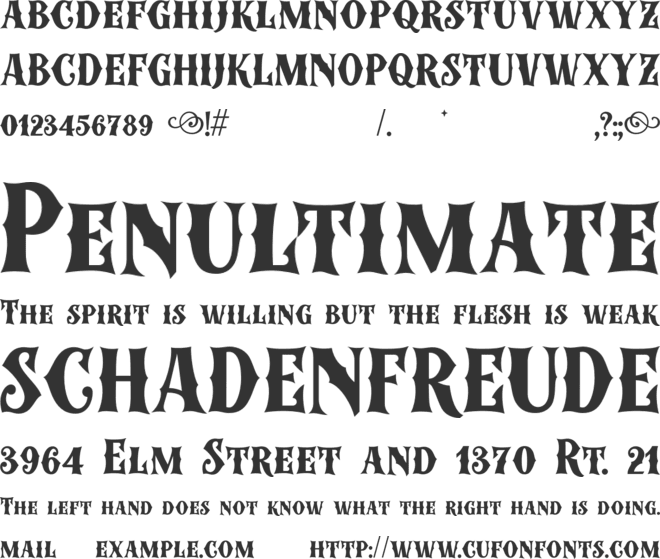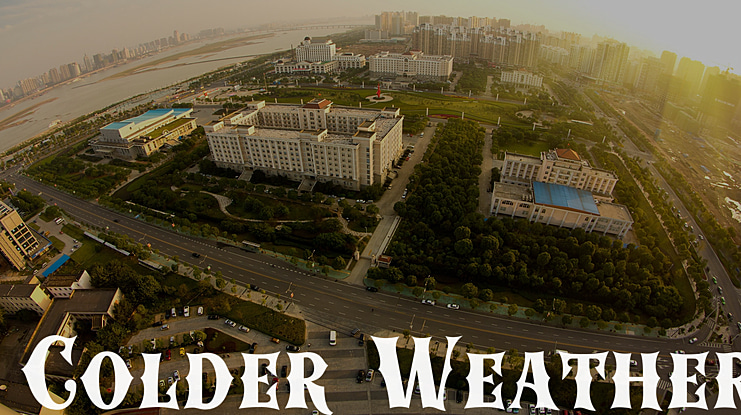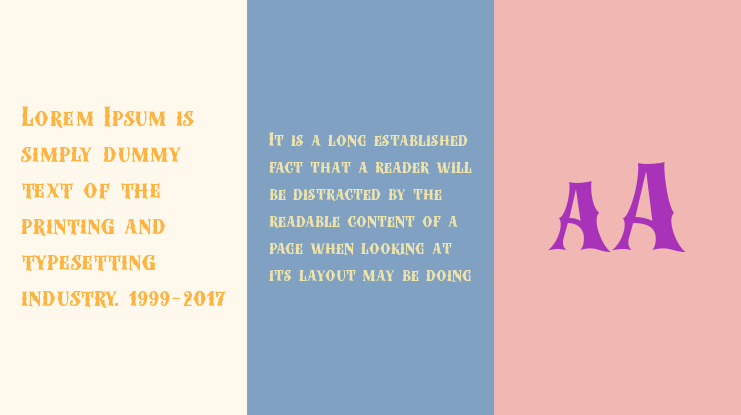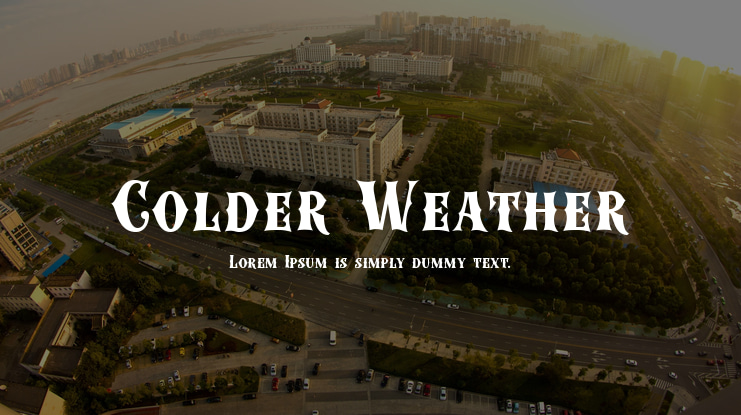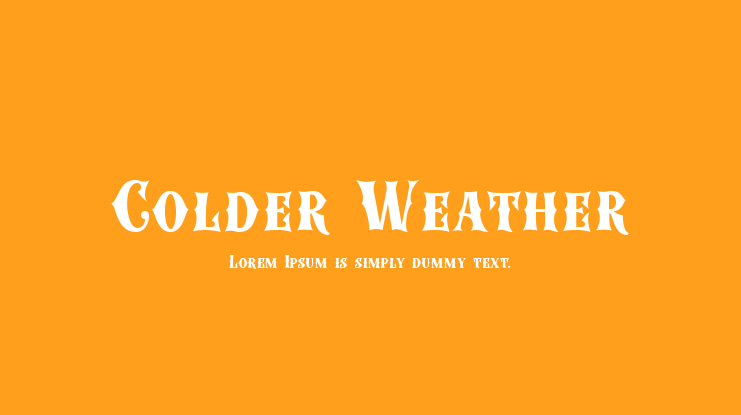
Colder Weather Font
Colder Weather is a Western Style All Caps font with basic Latin character set.
A-Z a-z numbers 0-9 .:,;?!
type ( ) { } [ ] for the ornaments.